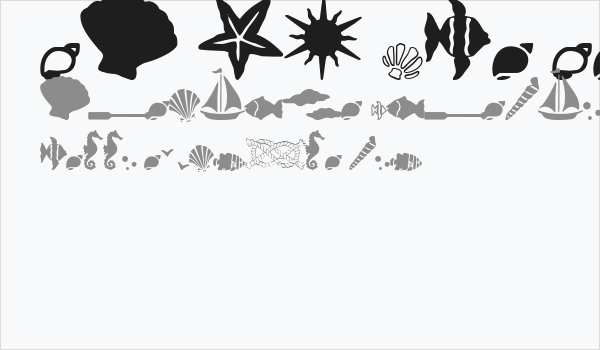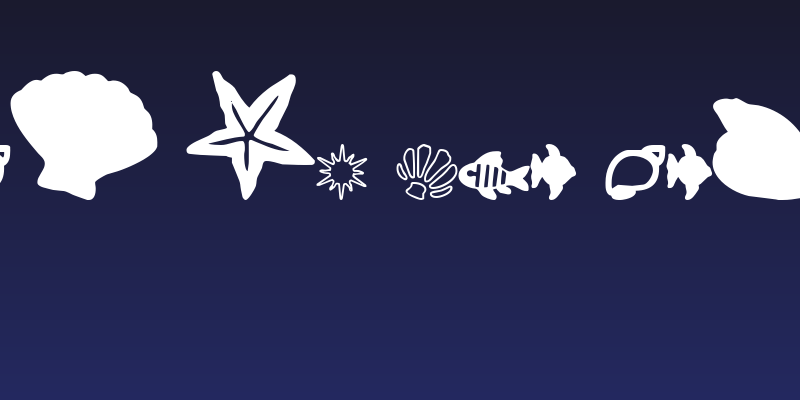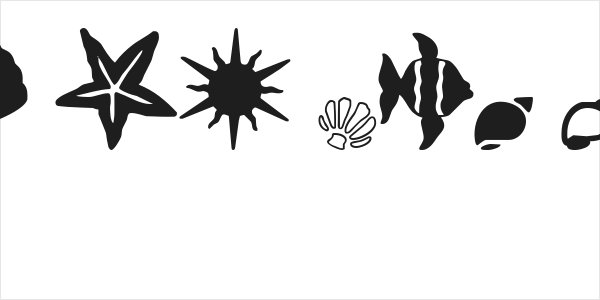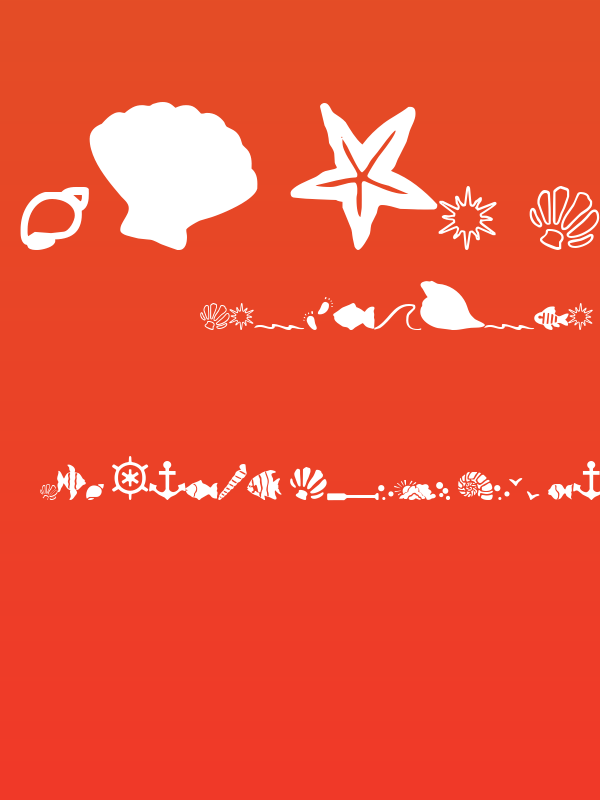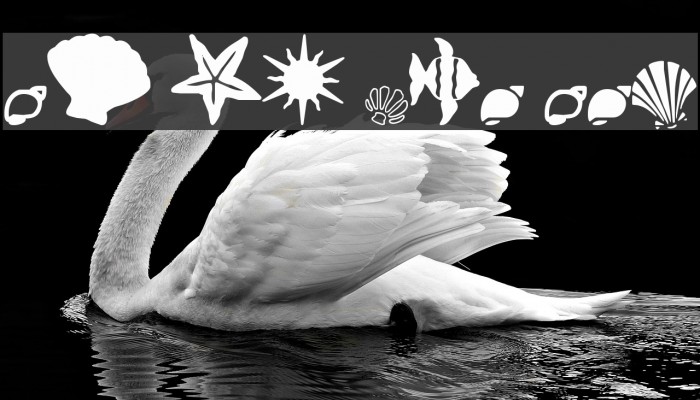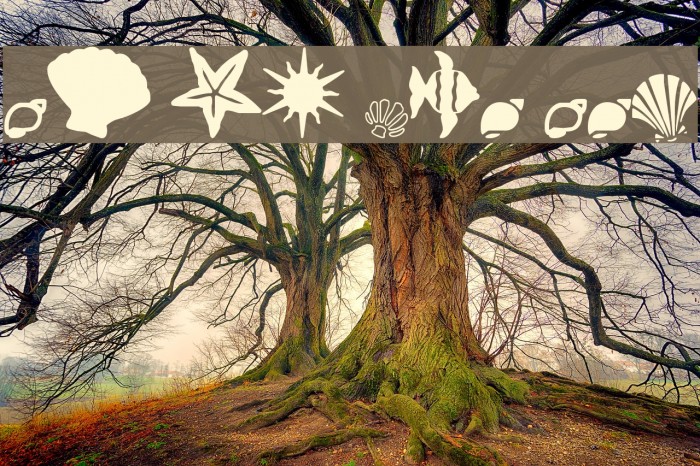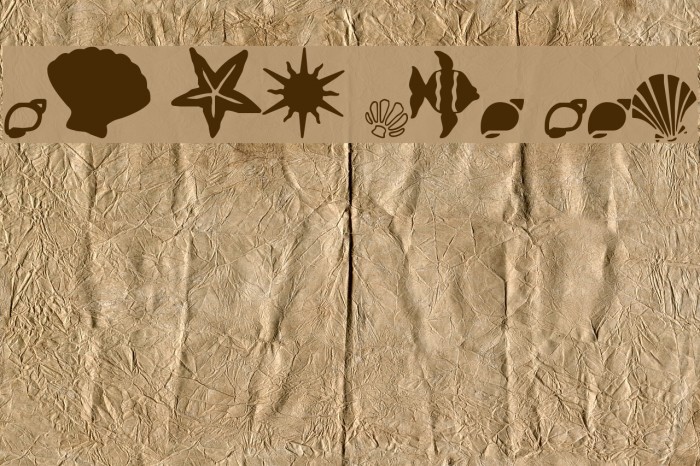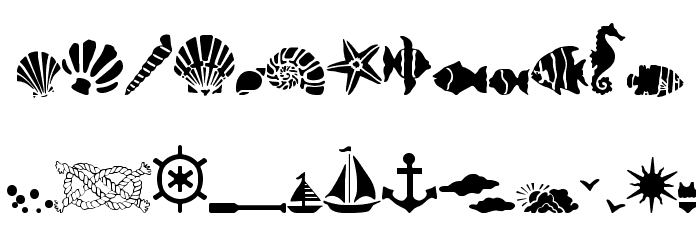
SC By The Sea Font
SC By The Sea Description
A decorative dingbat font featuring various sea-themed silhouettes such as shells, starfish, fish, boats, anchors, clouds, and nautical elements. Each character is represented by a unique maritime or beach-related icon, rendered in solid black or outlined style.
| Overall Style | Decorative, Nautical, Playful |
| Use Case | Decorative elements, Borders, Themed graphics |
| Proposed Projects | Beach party invitations, summer event flyers, scrapbooking, children's educational materials, nautical-themed branding, decorative borders. |